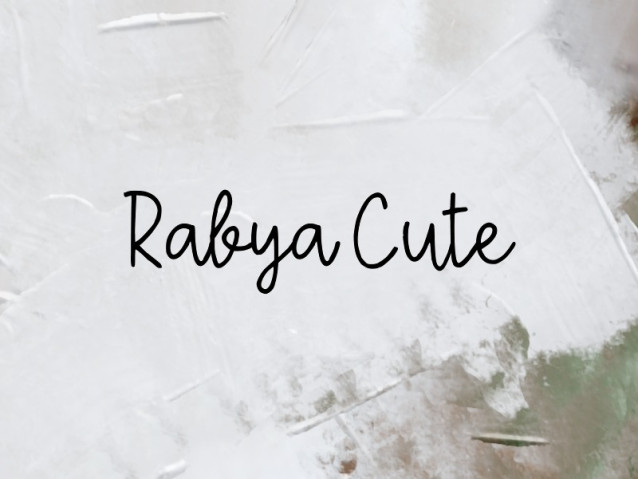
Rabya Cute Font
Rabya Cute Font is a simple and friendly handwritten font. Its natural and unique style makes it incredibly fitting to a large pool of designs. The only limit is your imagination!